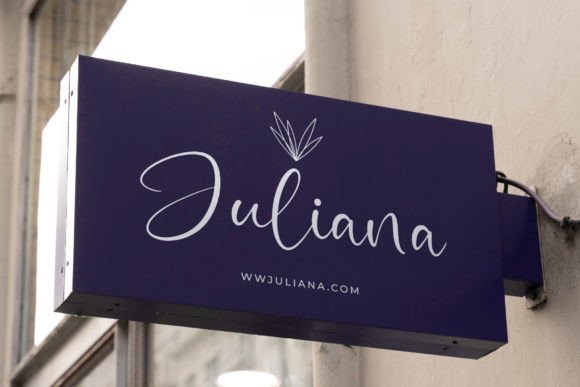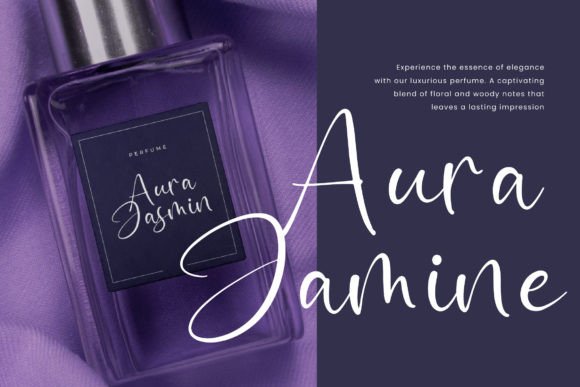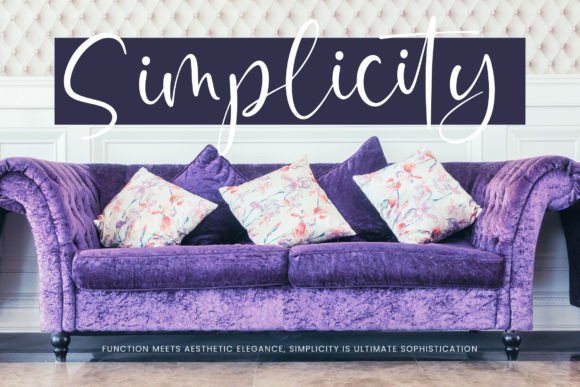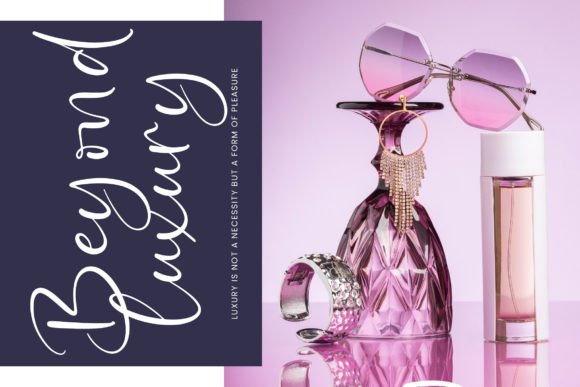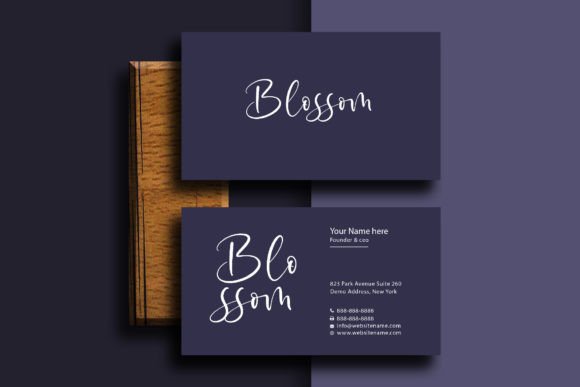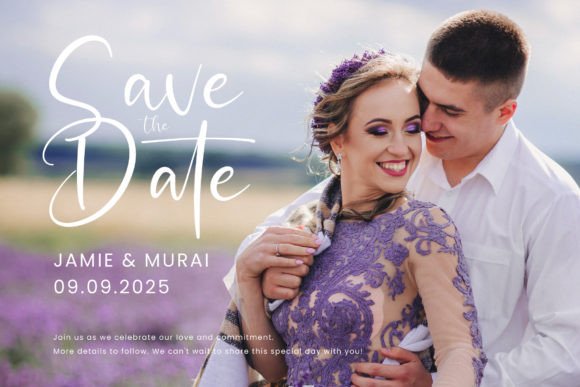
Introducing Diesel Getwiche Font: The Ultimate Luxury Script Font for Designers and Crafters
Are you a designer or crafter looking for a unique and luxurious font to elevate your projects? Look no further than the Diesel Getwiche Font, a quirky handwritten font from Letterena that’s perfect for adding a touch of sophistication to your designs. In this article, we’ll dive into the features and benefits of the Diesel Getwiche Font, and explore how it can be used to take your projects to the next level.
What is Diesel Getwiche Font?
Diesel Getwiche Font is a luxury script font that’s suitable for a wide range of projects, including logos, branding projects, homeware designs, product packaging, mugs, quotes, posters, shopping bags, t-shirts, book covers, name cards, invitation cards, greeting cards, labels, photography, watermarks, and special events. This versatile font is designed to add a touch of elegance and sophistication to any project, making it perfect for designers and crafters who want to create high-end designs.
Key Features of Diesel Getwiche Font
The Diesel Getwiche Font has several key features that make it stand out from other fonts. Some of its notable features include:
- Quirky Handwritten Style: The Diesel Getwiche Font has a unique, quirky handwritten style that’s perfect for adding a personal touch to your designs.
- Luxury Script Font: This font is designed to add a touch of luxury and sophistication to your projects, making it perfect for high-end designs.
- Highly Versatile: The Diesel Getwiche Font is suitable for a wide range of projects, from logos and branding projects to homeware designs and special events.
Benefits of Using Diesel Getwiche Font
There are several benefits to using the Diesel Getwiche Font in your projects. Some of the benefits include:
- Adds a Touch of Sophistication: The Diesel Getwiche Font adds a touch of sophistication and elegance to any project, making it perfect for high-end designs.
- Unique and Quirky: This font has a unique, quirky style that’s perfect for adding a personal touch to your designs.
- Increases Brand Value: Using a luxury script font like Diesel Getwiche can increase the brand value of your clients or your own business.
- Perfect for Crafting: This font is perfect for crafters who want to create high-end designs for their products, such as mugs, t-shirts, and other homeware items.
In conclusion, the Diesel Getwiche Font is a luxury script font that’s perfect for designers and crafters who want to add a touch of sophistication to their projects. With its quirky handwritten style, highly versatile design, and ease of use, this font is suitable for a wide range of projects, from logos and branding projects to homeware designs and special events. Whether you’re a professional designer or a crafter, the Diesel Getwiche Font is a great addition to your font collection.